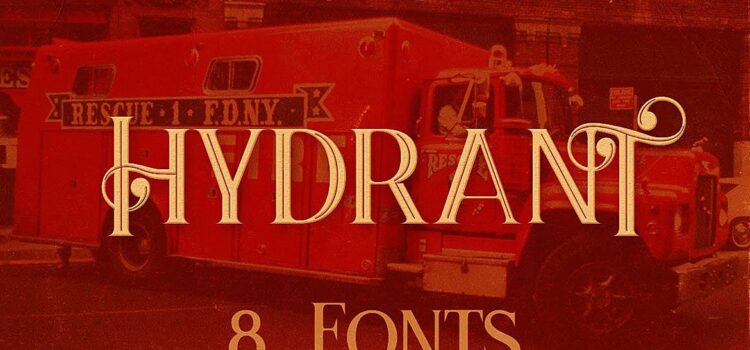
Hydrant Font – Free Download Introduction to Hydrant Font Hydrant is a beautiful vintage style typeface whose forte is legibility and style. 📸 Preview Gallery 4 images 📌 Product Name Hydrant Font 👤 Author JumboDesign 📂 Category Explore ⬇️ Download